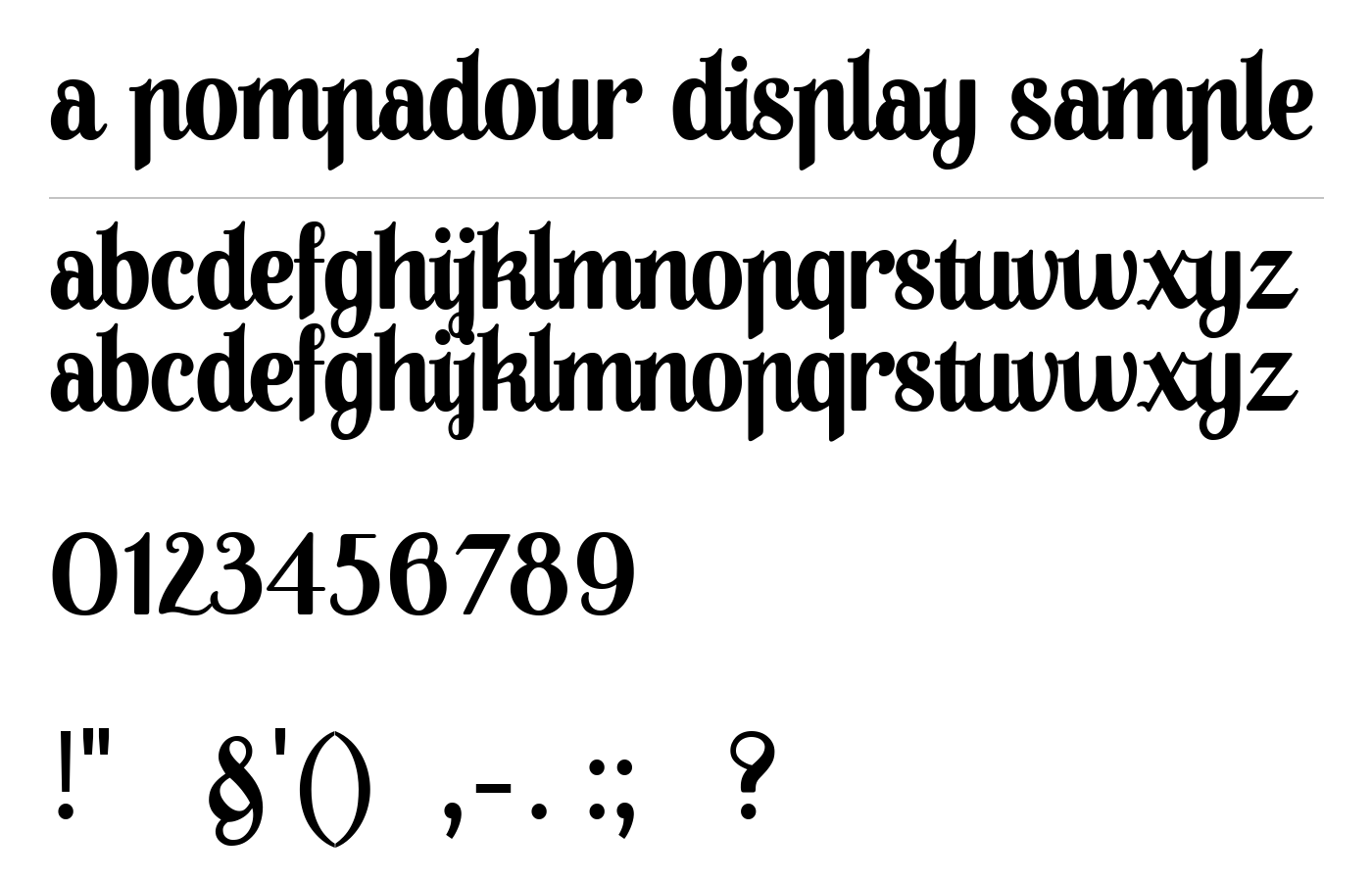
A Pompadour Display is a bold, narrow serif font with a distinctive vintage flair, featuring high contrast between thick and thin strokes and elegant bracketed serifs. Its tall x-height and unique letterforms, like the curled ampersand and stylized numerals, give it a playful yet sophisticated personality ideal for logos, packaging, and headlines that seek a classic, retro-inspired look. This font works beautifully when you want to add charm and character to designs while maintaining strong readability.
A Pompadour Display Sample Font